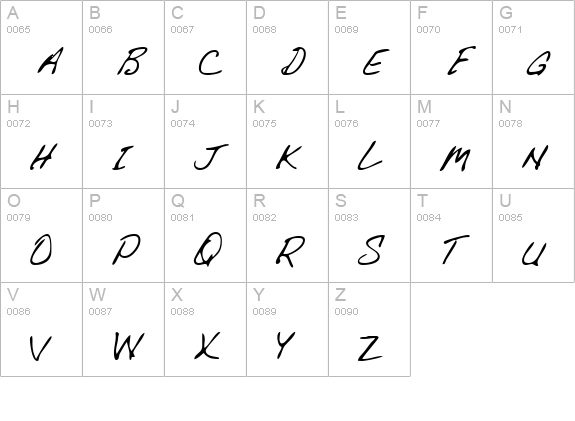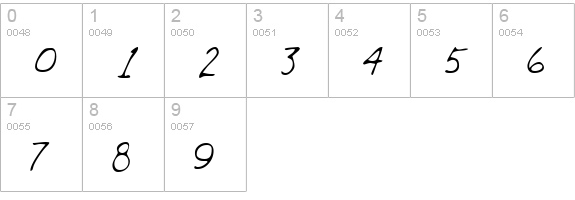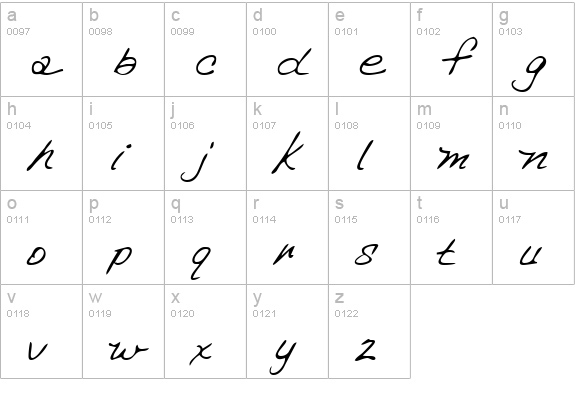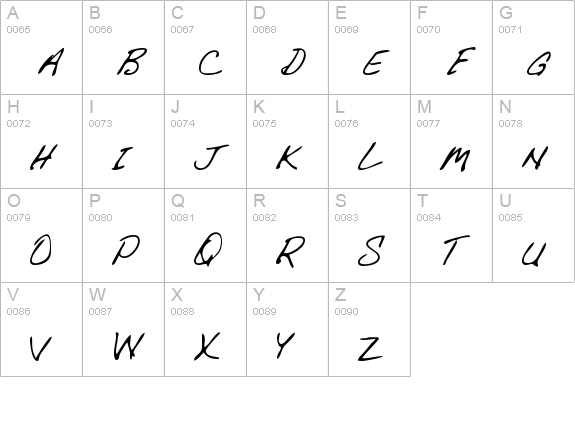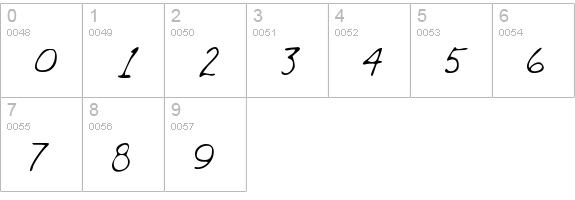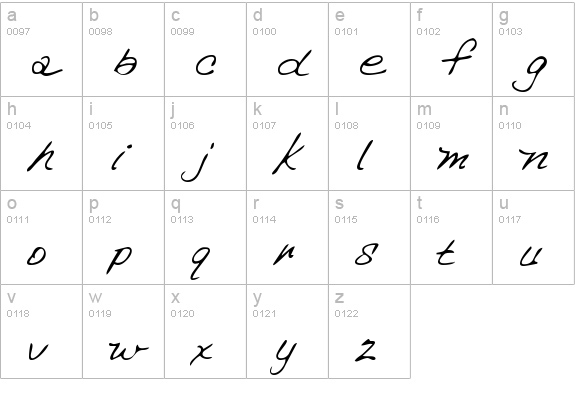
SusansHand Regular is the standard, neutral variant in the SusansHand typeface family \xE2\x80\x94 well suited to general body text, paragraphs, and standard typographic work.
Introducing SusansHand Regular font, a charming and versatile typeface that exudes a friendly and approachable vibe. With its hand-drawn look and flowing strokes, this font is perfect for adding a personal touch to your designs. Whether you're working on a greeting card, logo, or social media graphic, SusansHand Regular is sure to make your text stand out. The best part? SusansHand Regular font is available for free download at FontsMarket.com. So go ahead and elevate your designs with this delightful and expressive font without breaking the bank. Don't miss out on the opportunity to enhance your projects with the whimsical charm of SusansHand Regular font today!